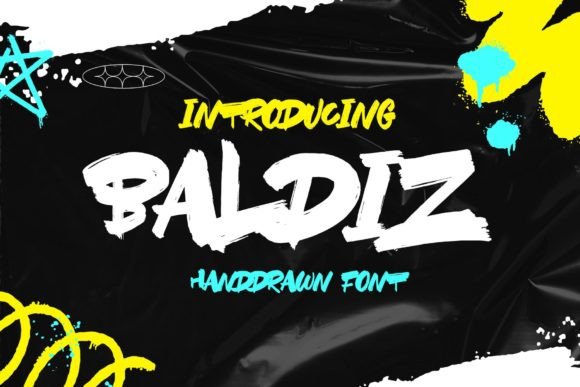
Baldiz Font: Elevate Your Designs with Stunning Hand-Painted Typography
In the world of design, typography plays a crucial role in conveying messages, evoking emotions, and creating lasting impressions. For designers and crafters seeking to add a personal touch to their projects, a unique and high-quality font can make all the difference. This is where Baldiz Font comes in – a beautifully hand-painted typeface designed to bring the elegance of custom hand-lettering to your designs.
What is Baldiz Font?
Baldiz is a meticulously crafted, hand-painted display font that allows you to create stunning custom hand-lettering with ease. Its distinctive charm and character make it an ideal choice for a wide range of design applications, from quotes and posters to logos, print ads, digital ads, promotional products, and video bumpers.
Key Features of Baldiz Font
- Hand-painted elegance: Baldiz boasts a unique, hand-painted aesthetic that adds a touch of sophistication and personality to any design.
- Versatile usage: This display font is perfect for various design projects, including quotes, posters, logos, print ads, digital ads, promotional products, and video bumpers.
- Easy to use: Baldiz is designed to be user-friendly, allowing designers to effortlessly incorporate its beautiful typography into their work.
Benefits of Using Baldiz Font
By incorporating Baldiz Font into your designs, you can:
- Stand out from the crowd: With its distinctive hand-painted style, Baldiz helps your designs grab attention and leave a lasting impression.
- Add a personal touch: This font allows you to infuse your projects with a unique, human element that resonates with your audience.
- Enhance brand identity: Baldiz can help you create a consistent visual brand language that sets your brand apart from competitors.
Design Applications for Baldiz Font
Baldiz Font is incredibly versatile and can be used in a variety of design applications, including:
- Quotes and posters: Add a touch of elegance to your inspirational quotes and posters with Baldiz’s beautiful hand-painted typography.
- Logos and branding: Create a unique and memorable brand identity with Baldiz’s distinctive font.
- Print ads and digital ads: Make your advertisements stand out with Baldiz’s eye-catching typography.
- Promotional products: Add a personal touch to your promotional products, such as t-shirts, mugs, and tote bags.
- Video bumpers and intros: Use Baldiz to create engaging and memorable video bumpers and intros.
Tips for Using Baldiz Font Effectively
To get the most out of Baldiz Font, consider the following tips:
- Experiment with colors: Baldiz looks great in a variety of colors, so don’t be afraid to experiment and find the perfect hue for your design.
- Mix and match: Combine Baldiz with other fonts to create a unique and visually appealing typography.
- Pay attention to spacing: Make sure to adjust the spacing between letters to ensure your text is easy to read and visually appealing.
Baldiz Font is a stunning hand-painted typeface that can elevate your designs and add a touch of elegance to your typography. With its versatility, ease of use, and beautiful aesthetic, Baldiz is an excellent choice for designers and crafters looking to create unique and memorable designs. Whether you’re working on a quote, poster, logo, or promotional product, Baldiz Font is sure to help you create a lasting impression.